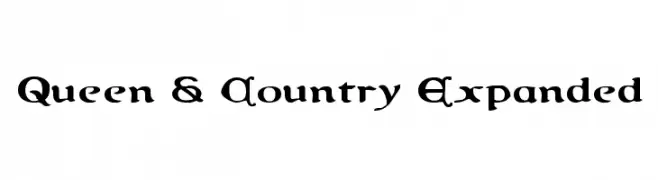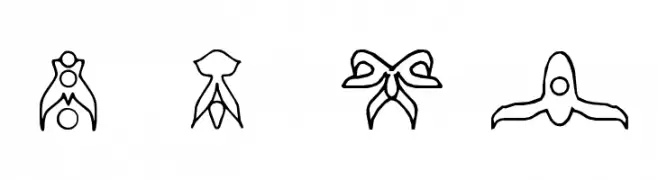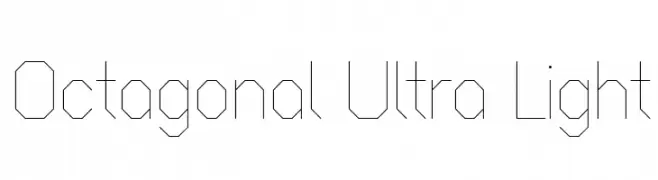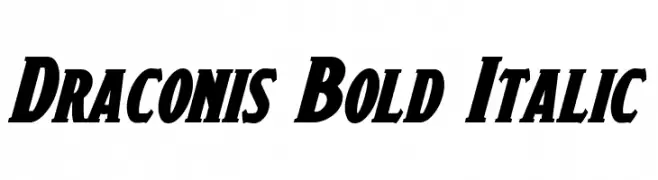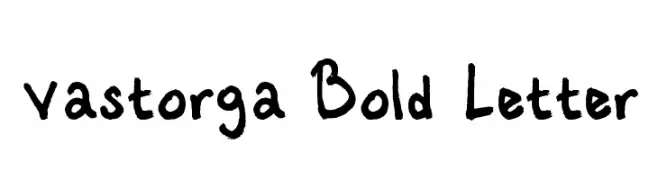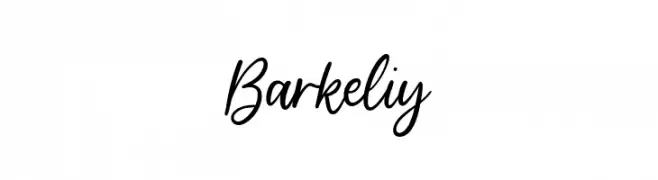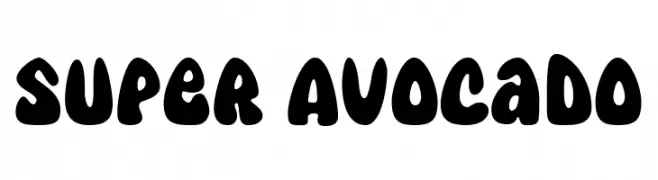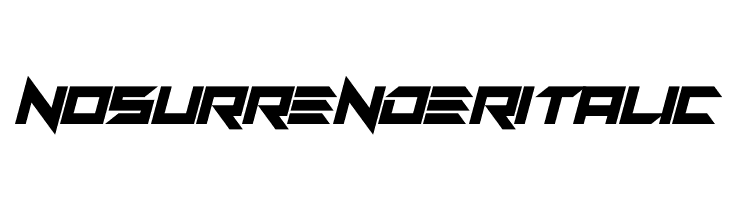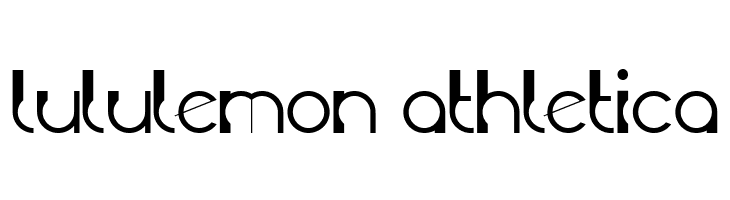
A bold, decorative font with intricate curves and sharp edges.
A collection of intricate, abstract symbols with minimalistic numerals.
A bold, modern sans-serif font with clean lines and strong visual impact.
A modern, geometric font with octagonal shapes and ultra-light strokes.
A bold, italicized font with high contrast and dynamic slant.
A bold, handwritten font with a playful and casual style.
A bold, italicized font with sharp angles and a futuristic design.
A cursive, handwritten-style font with elegant, flowing letters.
A bold, playful font with thick, rounded characters and a whimsical style.
A graceful and elegant handwritten font with fluid, connected strokes.